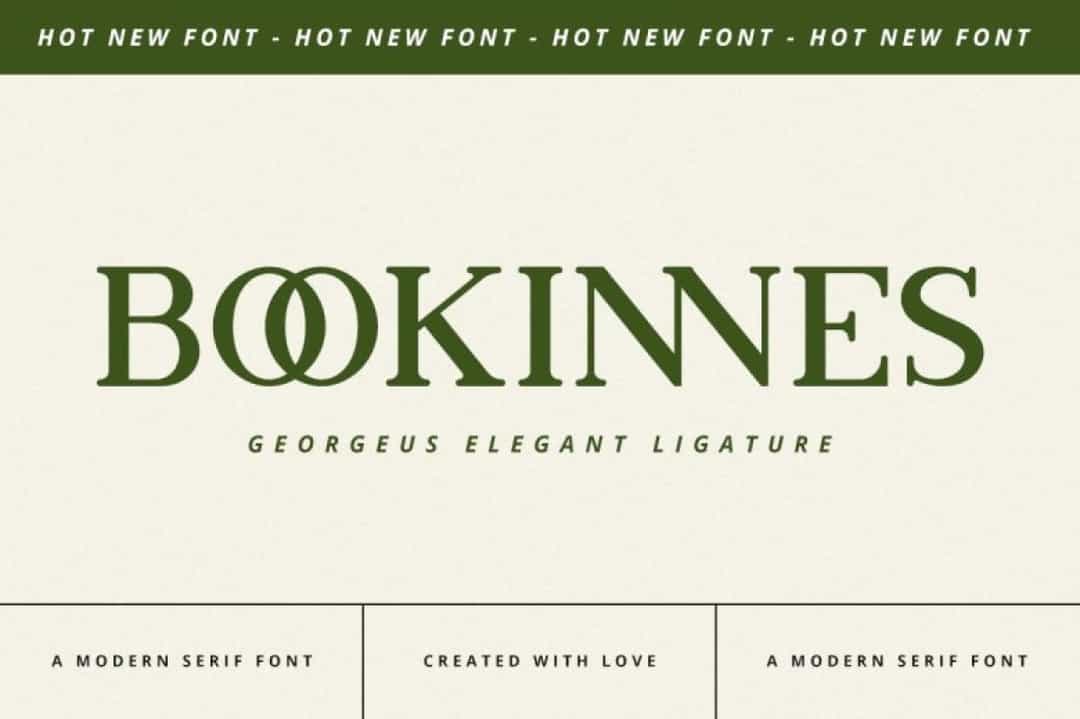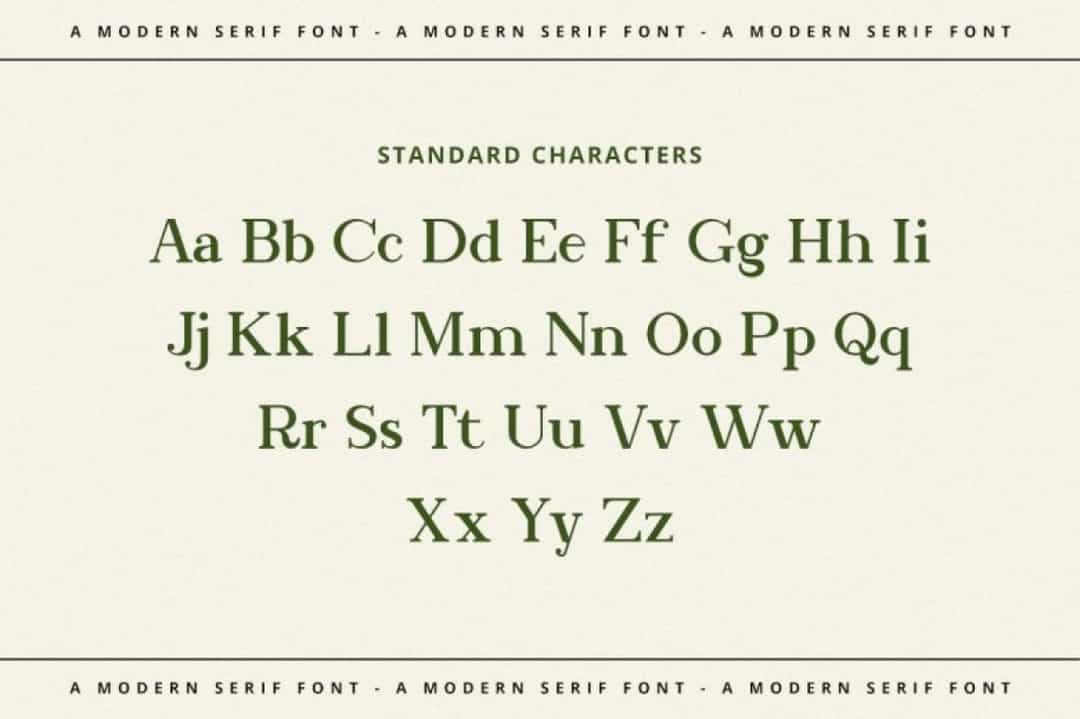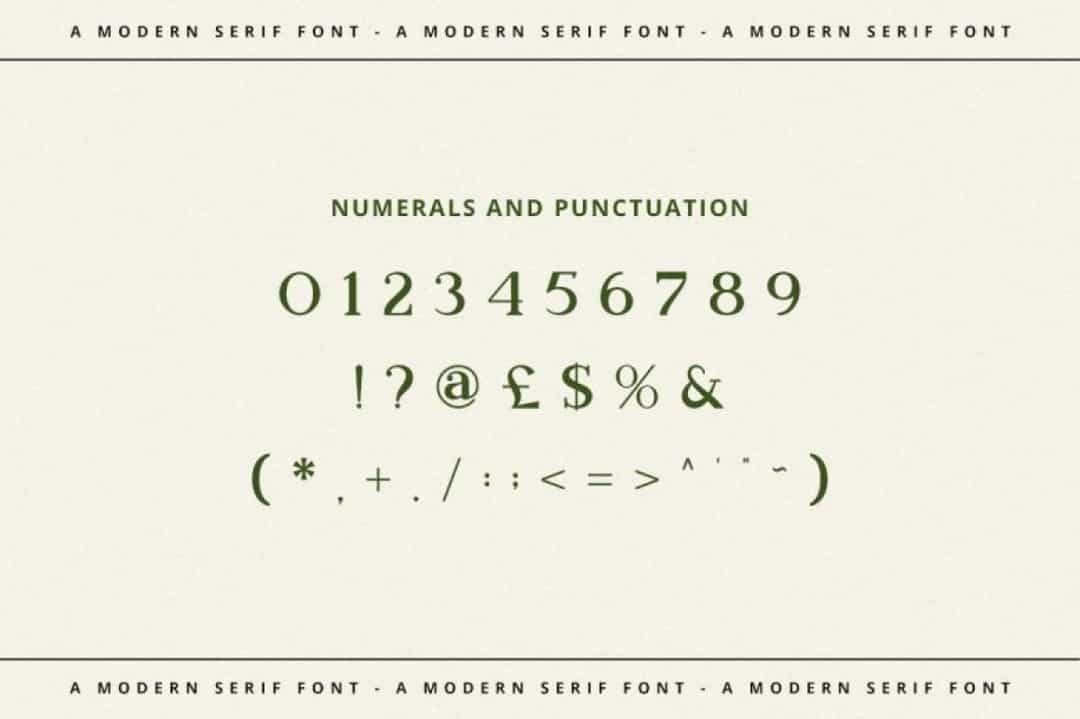
Bookinnes is an elegant serif font designed with care to stand out and make an impressionful statement about any concept! Bookinnes can take your ideas one step further!